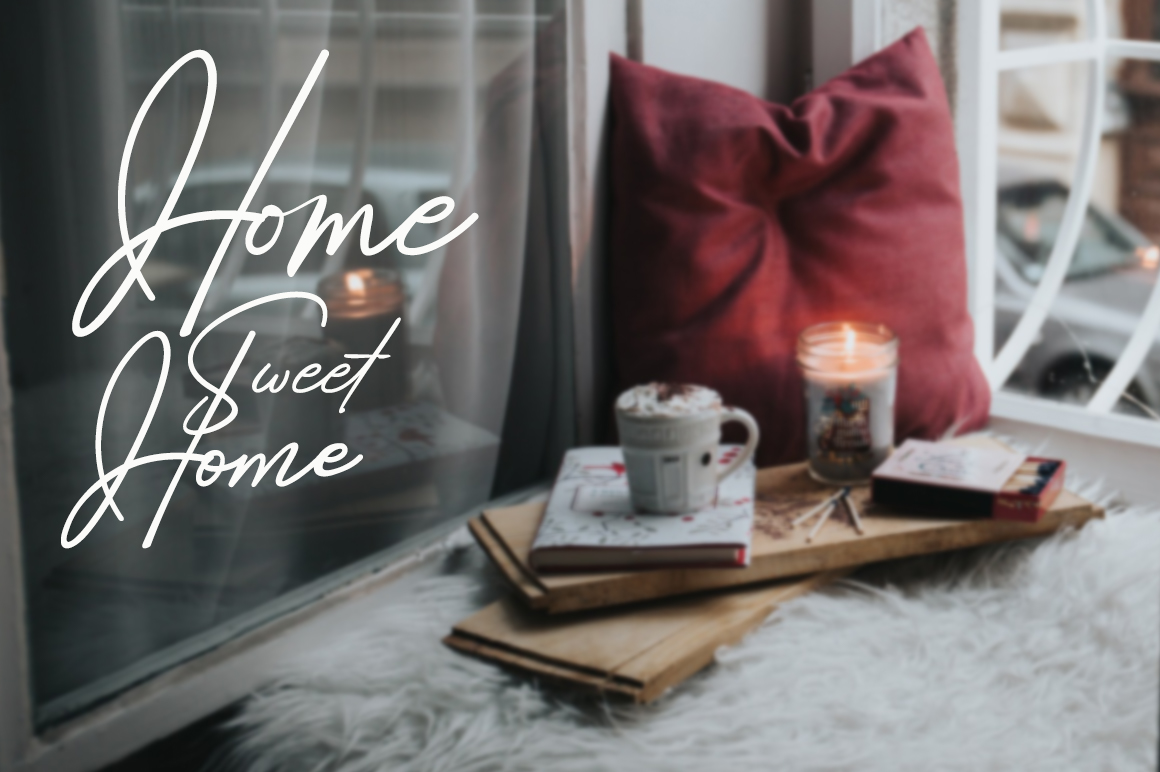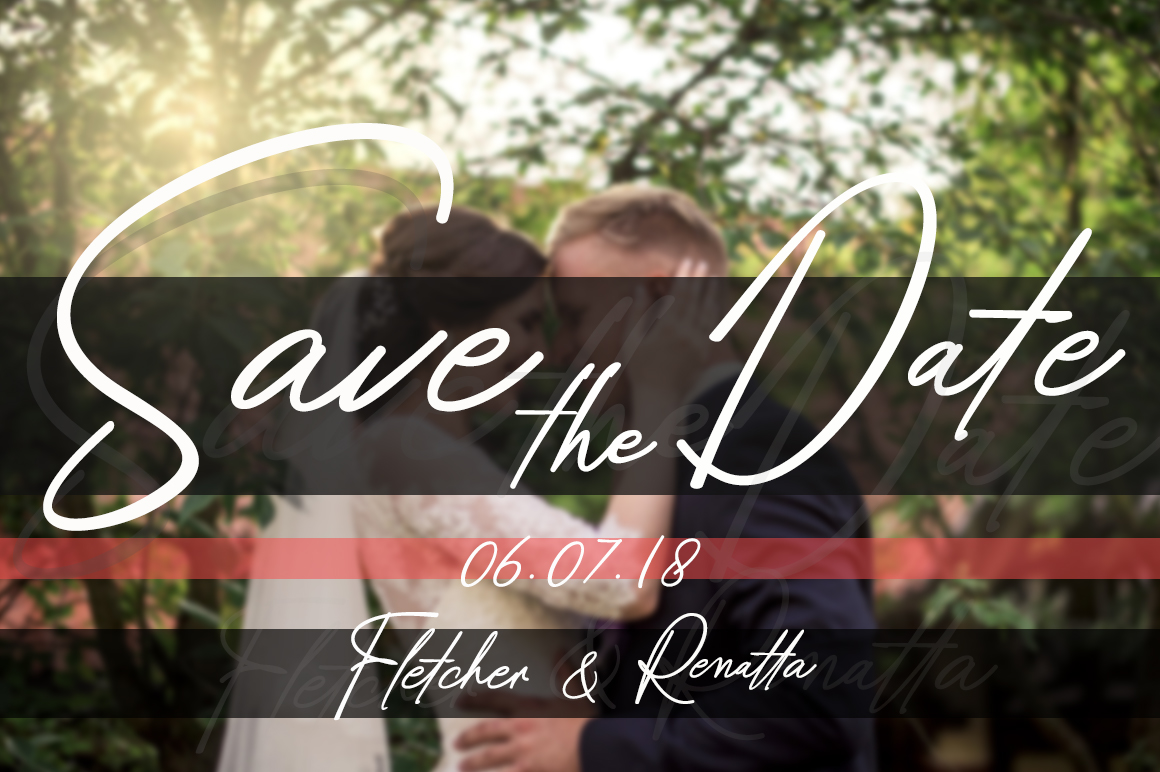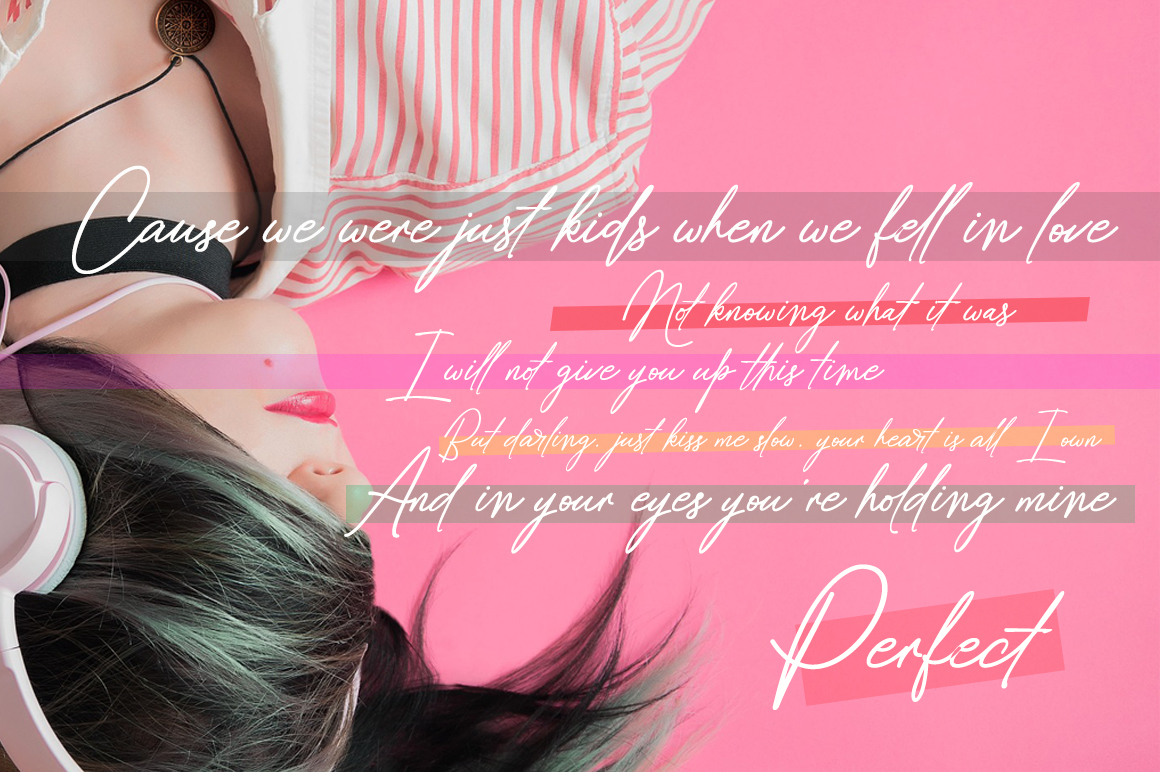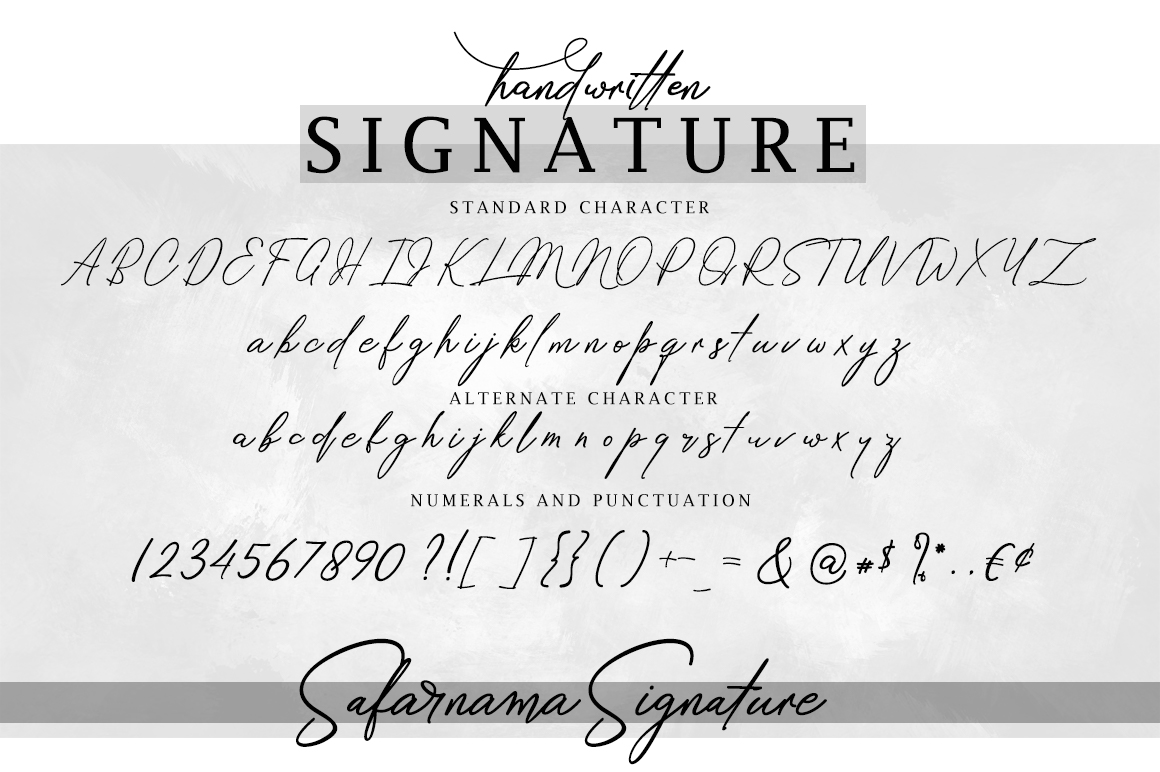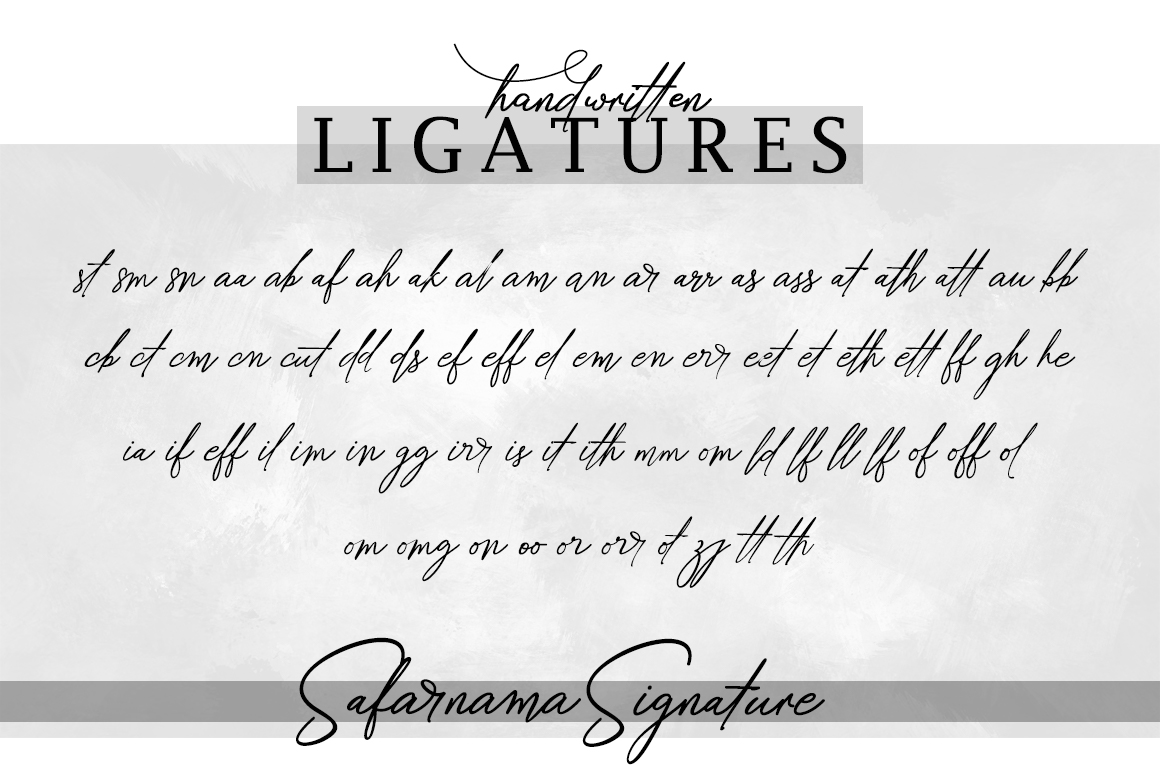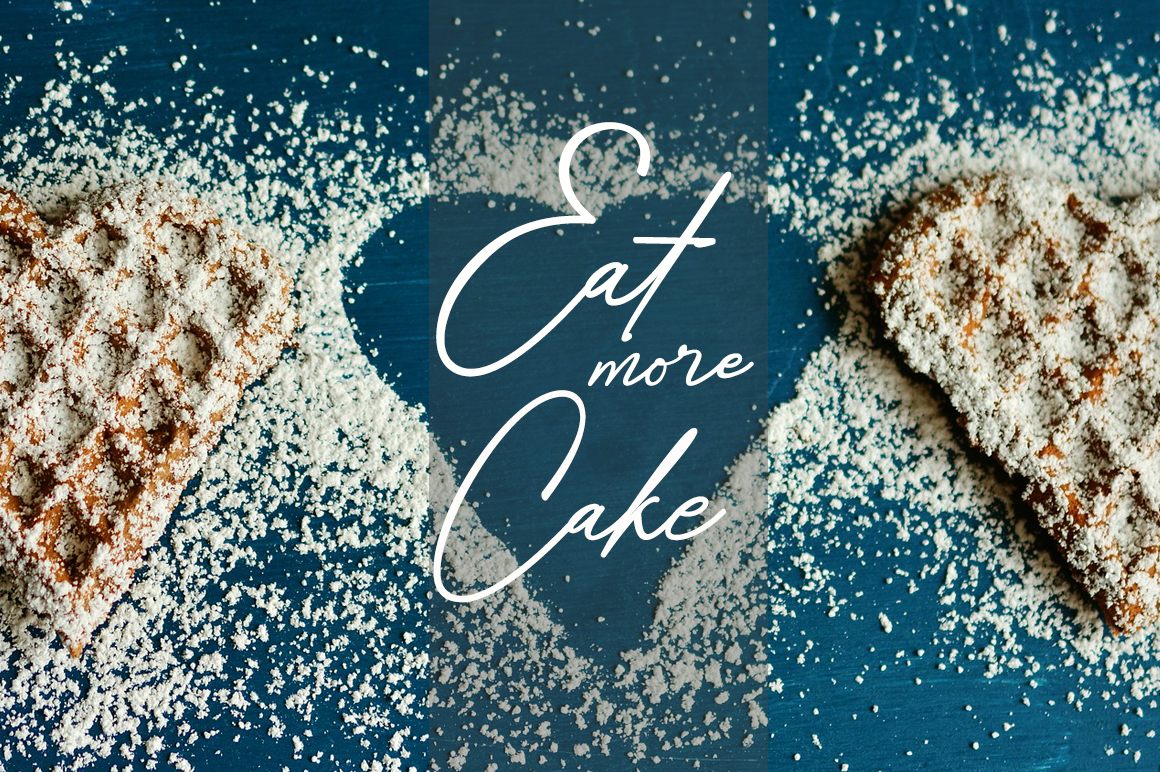
Introduction to Safarnama Font
Safarnama Signature is a gorgeous and fashionable handwritten script.
Give your projects typographic harmony with this well balanced and casual script font .
Key Features of Safarnama Font
Why Choose Safarnama Font?
Safarnama Font offers exceptional quality and versatility, making it a valuable addition to your design toolkit. Whether you’re creating for personal projects or commercial use, Safarnama Font delivers professional results.